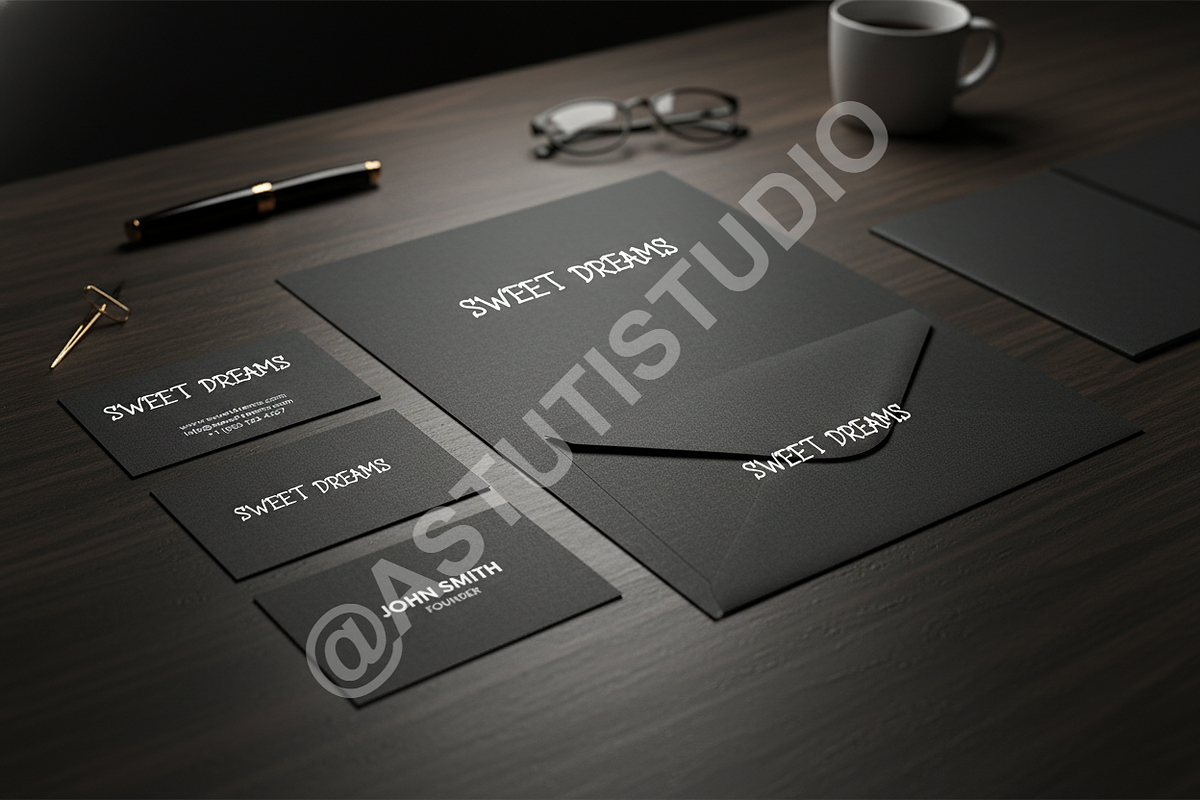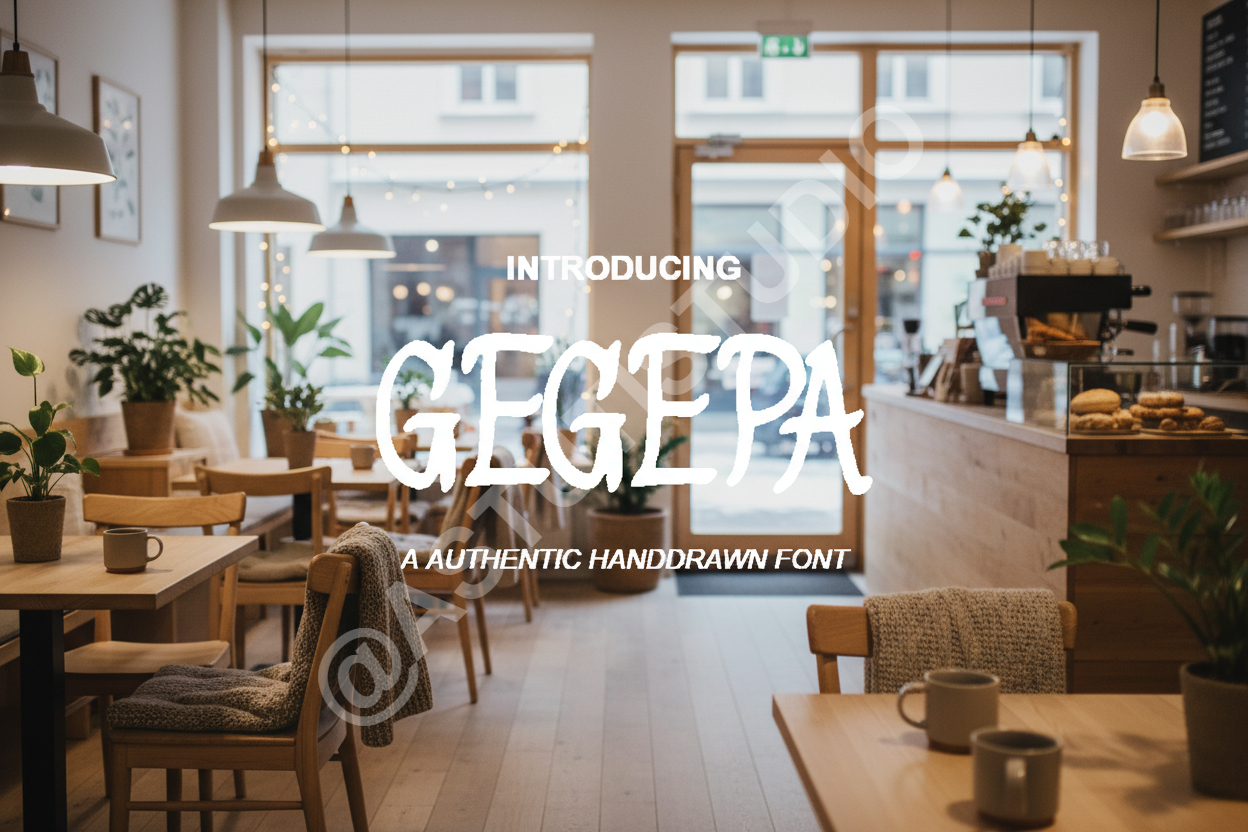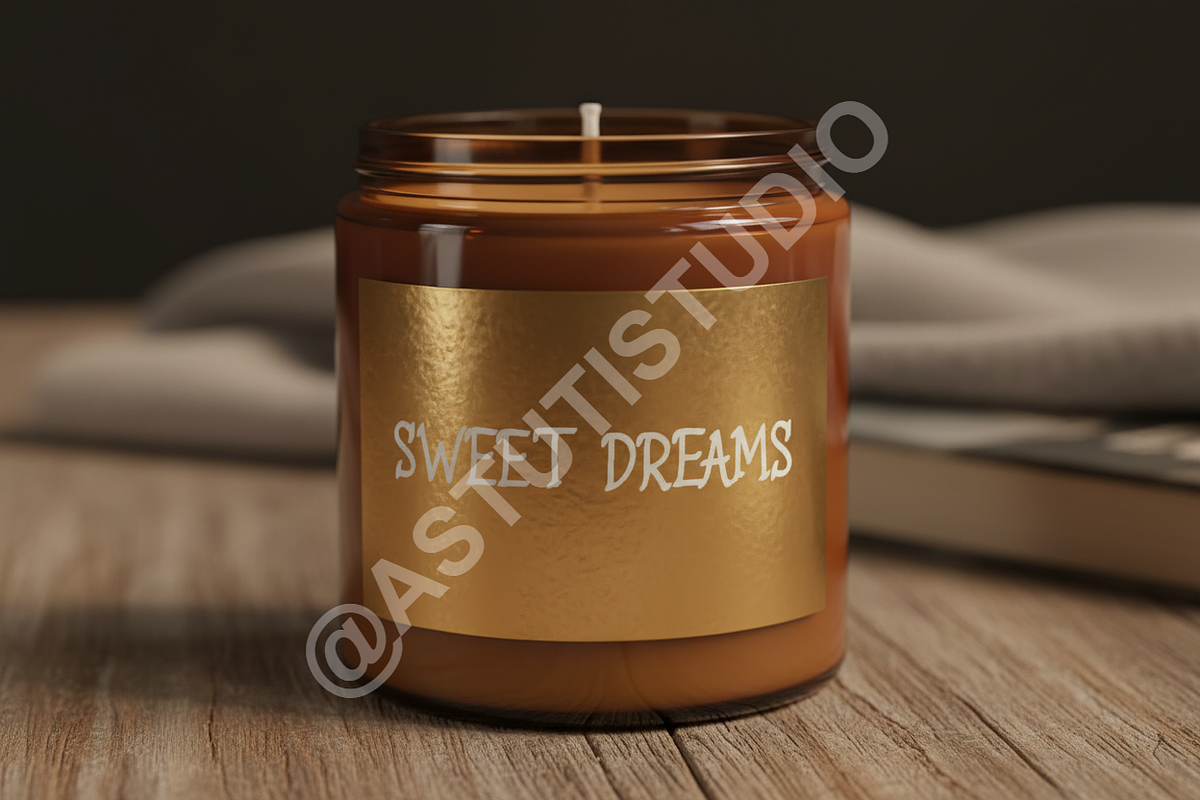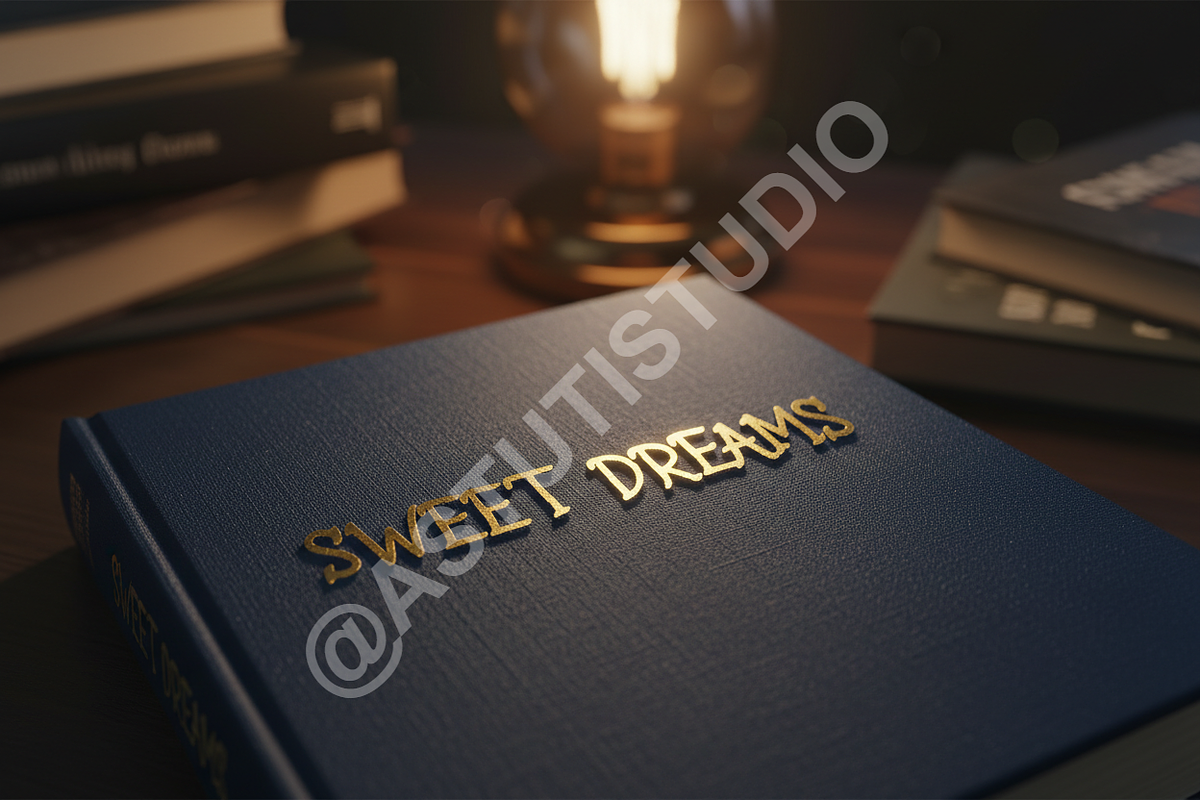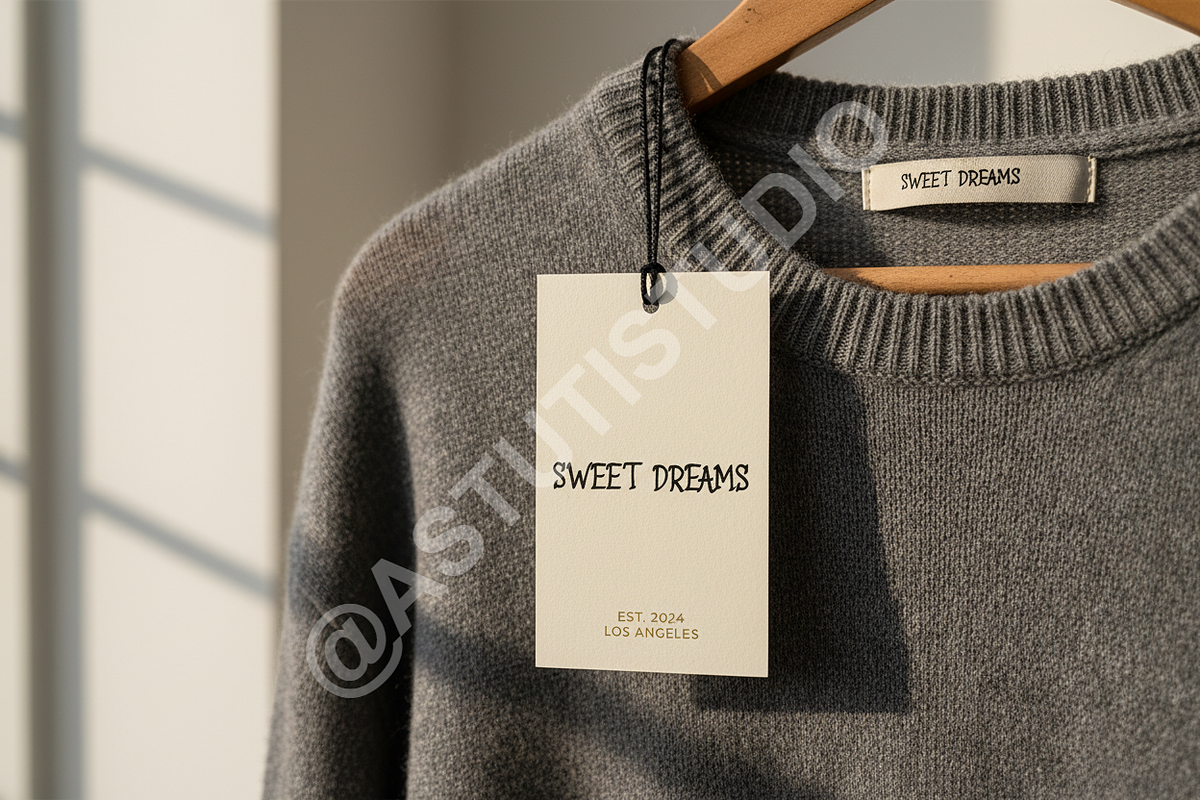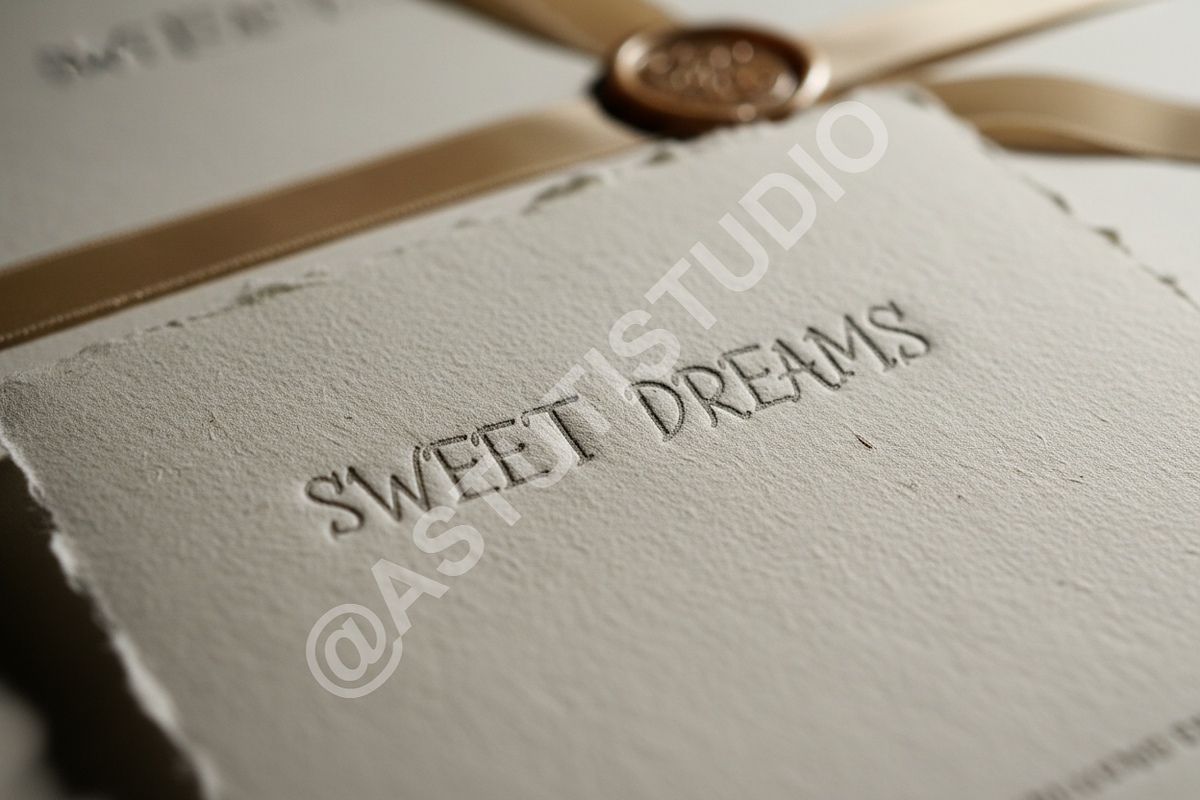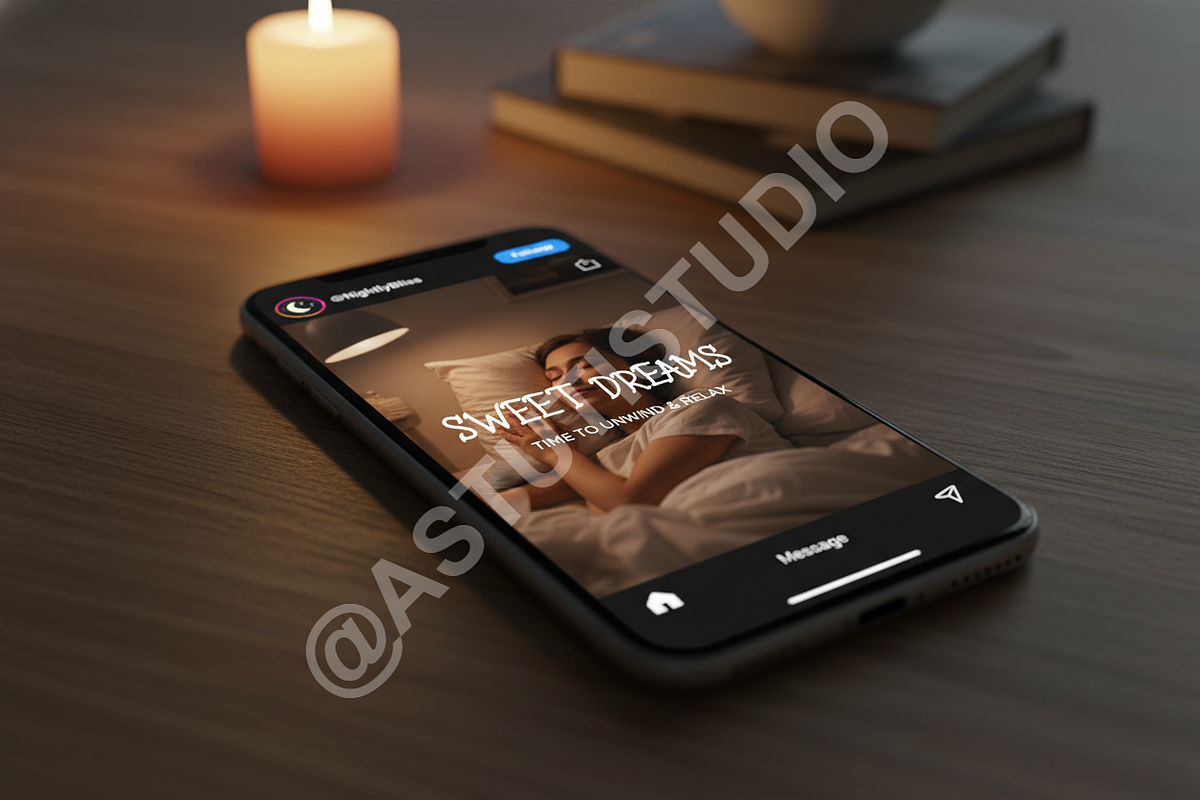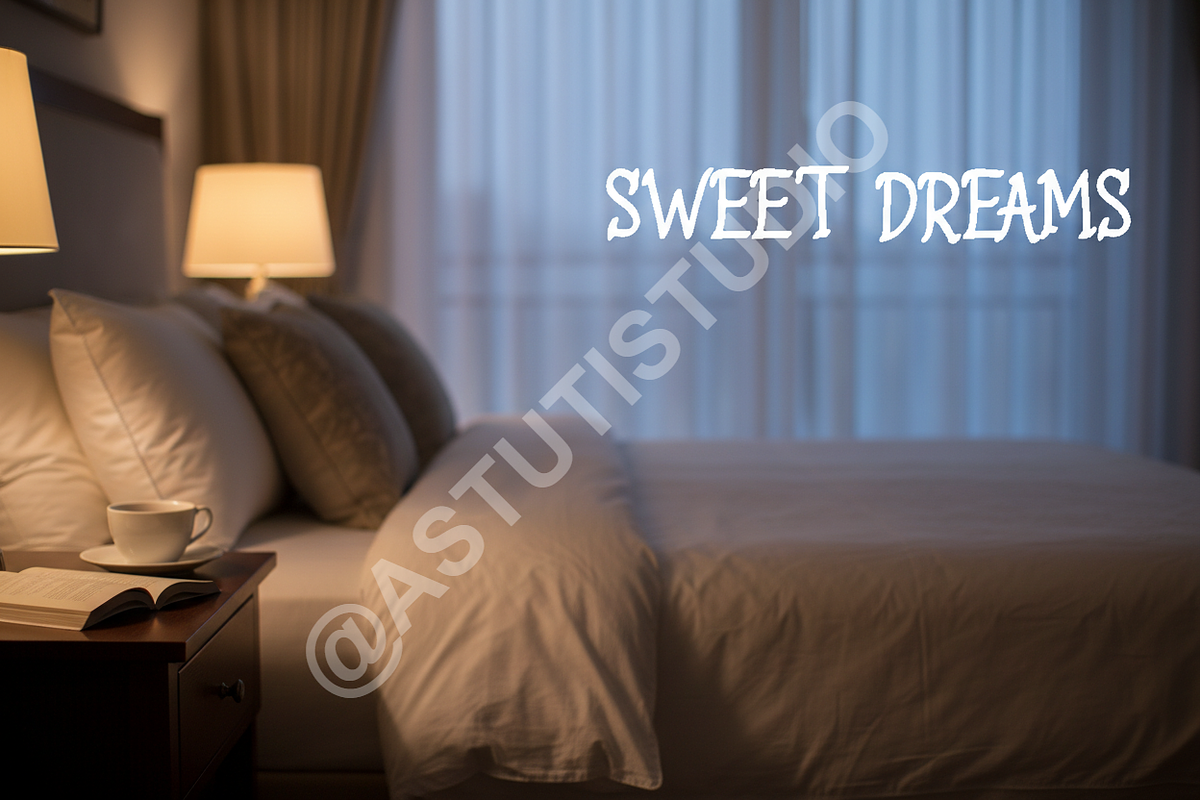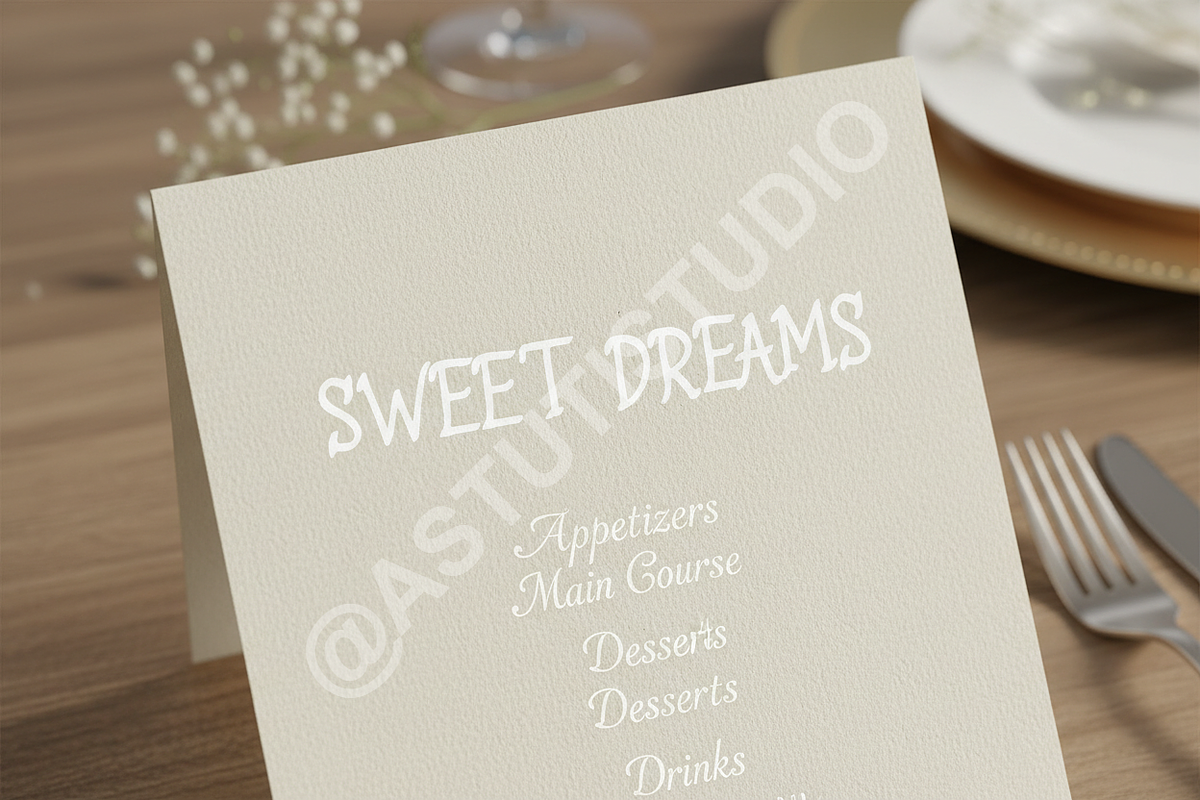
Gegepa Typeface | Modern Luxury Seri
Introducing Gegepa, a meticulously crafted high-contrast serif typeface designed for ultimate sophistication. Gegepa blends timeless classical proportions with a sharp, modern execution, making it the definitive choice for premium design work that demands elegance and authority.
Key Features & Versatility
Gegepa is engineered to excel in high-impact visual environments, providing impeccable readability and distinct style across various mediums:
- Luxury Branding: Ideal for logo design, exclusive packaging, and high-end collateral where a sense of permanence and quality is essential.
- Editorial Design: High legibility in body text combined with dramatic display potential for magazine layouts, book covers, and sophisticated annual reports.
- Social Media & Digital: Commands attention in web headers, Instagram posts, and motion graphics, maintaining clarity even at small scales.
- Full Multilingual Support: Access to a comprehensive character set covering Western, Central, and South Eastern European languages.
- OpenType Features: Includes standard ligatures and discretionary alternates to enhance creative typographic compositions.